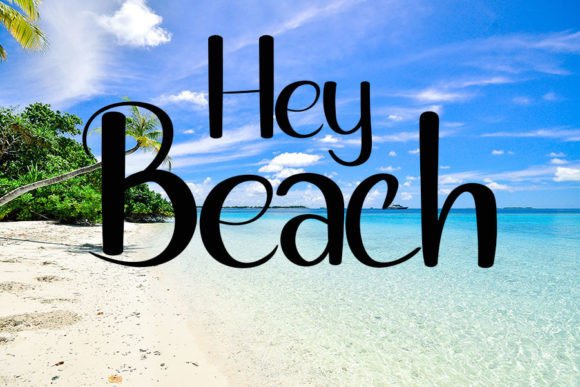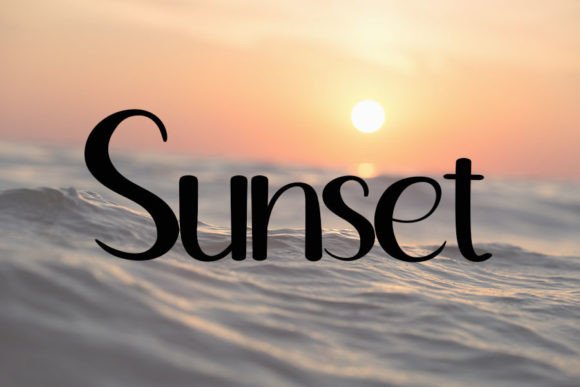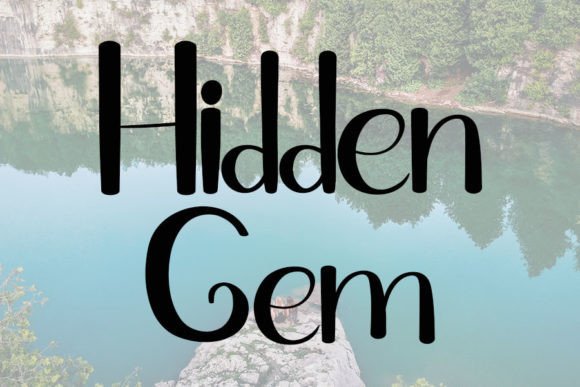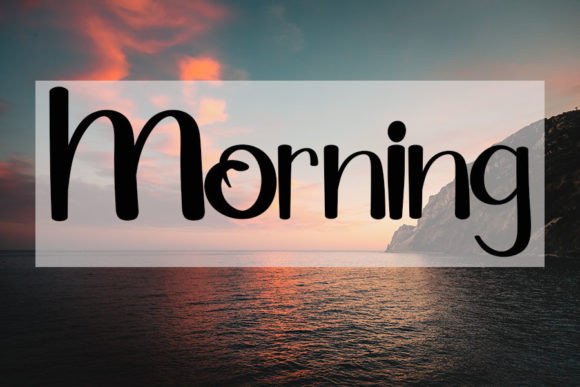
Introducing Beach Font: The Perfect Handwritten Font for Your Design Projects
Are you tired of using the same old fonts for your design projects? Look no further! Beach Font is a beautiful handwritten font that is sure to add a touch of elegance and sophistication to any design. With its incredibly distinct and timeless style, Beach Font is perfect for designers and crafters who want to create spectacular designs that stand out from the crowd.
What is Beach Font?
Beach Font is a neat and beautiful handwritten font that is described by an elegant touch. It is a high-quality font that is designed to be versatile and easy to use, making it perfect for a wide range of design projects. Whether you’re creating a logo, a poster, or a social media graphic, Beach Font is sure to add a touch of class and sophistication to your design.
Key Features of Beach Font
• Elegant and Timeless Style: Beach Font has an incredibly distinct and timeless style that is sure to make your designs stand out.
• Handwritten with Love: Beach Font is a handwritten font that is crafted with love and care, giving it a personal and unique touch.
• Perfect for a Wide Range of Projects: Beach Font is versatile and can be used for a wide range of design projects, from logos and posters to social media graphics and more.
Why Choose Beach Font?
There are many reasons why Beach Font is the perfect choice for your design projects. Here are just a few:
• Unique and Distinctive: Beach Font has a unique and distinctive style that is sure to make your designs stand out from the crowd.
• High-Quality: Beach Font is a high-quality font that is designed to be clear and legible, even at small sizes.
• Versatile: Beach Font can be used for a wide range of design projects, from formal and professional to casual and creative.
• Easy to Pair with Other Fonts: Beach Font pairs well with a wide range of other fonts, making it easy to create beautiful and harmonious font combinations.
How to Use Beach Font in Your Design Projects
Using Beach Font in your design projects is easy! Here are a few tips to get you started:
• Use it for Headings and Titles: Beach Font is perfect for headings and titles, where its elegant and sophisticated style can really shine.
• Pair it with Other Fonts: Beach Font pairs well with a wide range of other fonts, making it easy to create beautiful and harmonious font combinations.
• Experiment with Different Sizes and Colors: Beach Font looks great at a wide range of sizes and colors, so don’t be afraid to experiment and find the perfect look for your design.
Beach Font is a beautiful and elegant handwritten font that is perfect for designers and crafters who want to create spectacular designs. With its incredibly distinct and timeless style, Beach Font is sure to add a touch of class and sophistication to any design project. Whether you’re creating a logo, a poster, or a social media graphic, Beach Font is the perfect choice. So why wait? Download Beach Font today and start creating your own beautiful designs!